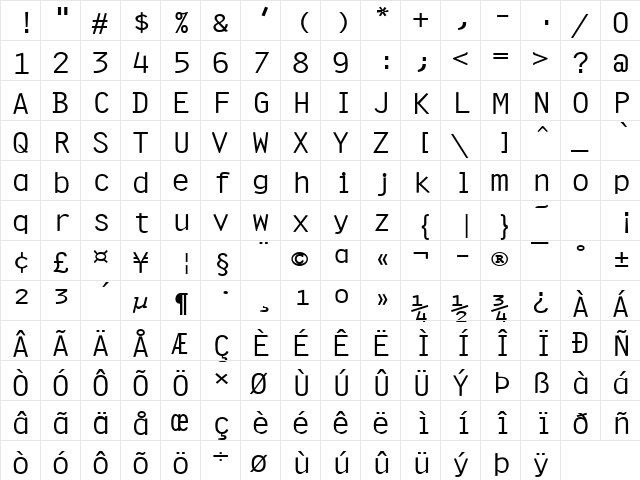
Clean-Extended Normal Font Preview
Clean-Extended Normal
Clean-Extended Normal Font Details
Design Context for Clean-Extended Typeface
Clean-Extended offers clean, dependable letterforms without strong stylistic allegiance, making it a practical choice for designers who need flexibility.